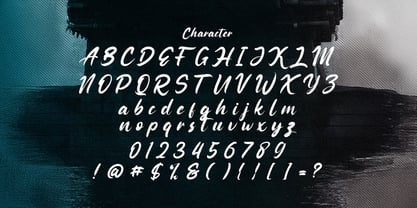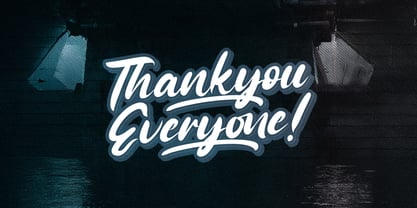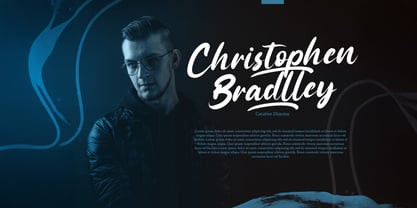
The Rattoney Font Family was designed by Virgiawan Listanto and published by Stringlabs Creative Studio. Rattoney contains 1 styles. More about this family
Rattoney is a bold script font with striking curves, confident strokes, and a modern flair. Designed to make a statement, it combines vintage script style with a fresh, contemporary edge perfect for designs that demand attention and personality.
Designers: Virgiawan Listanto
Foundry: Stringlabs Creative Studio
Rattoney